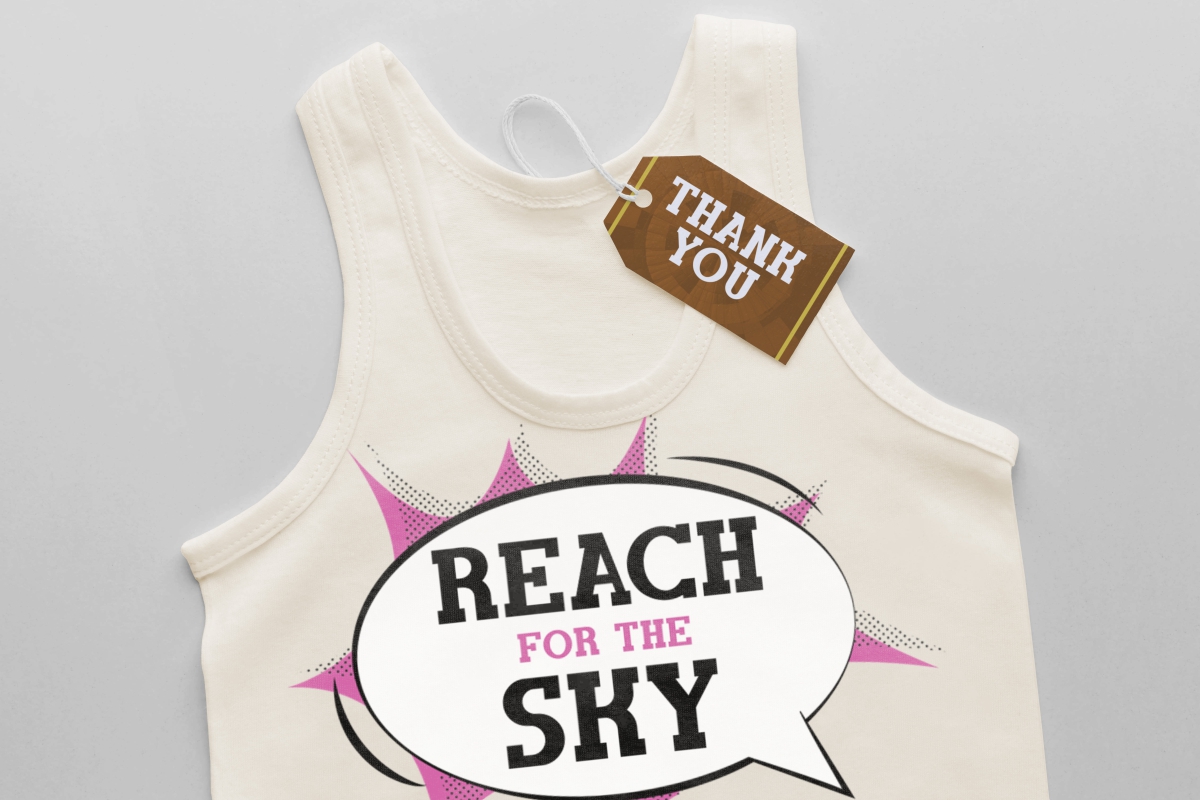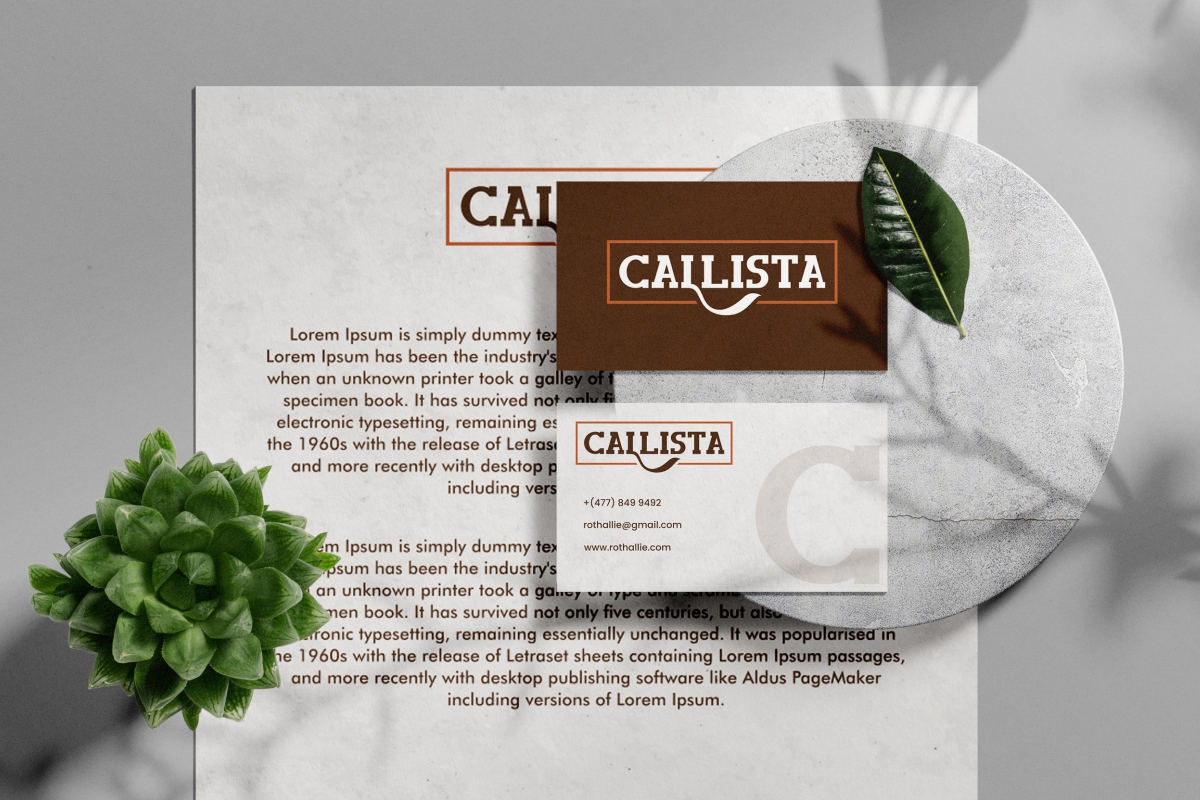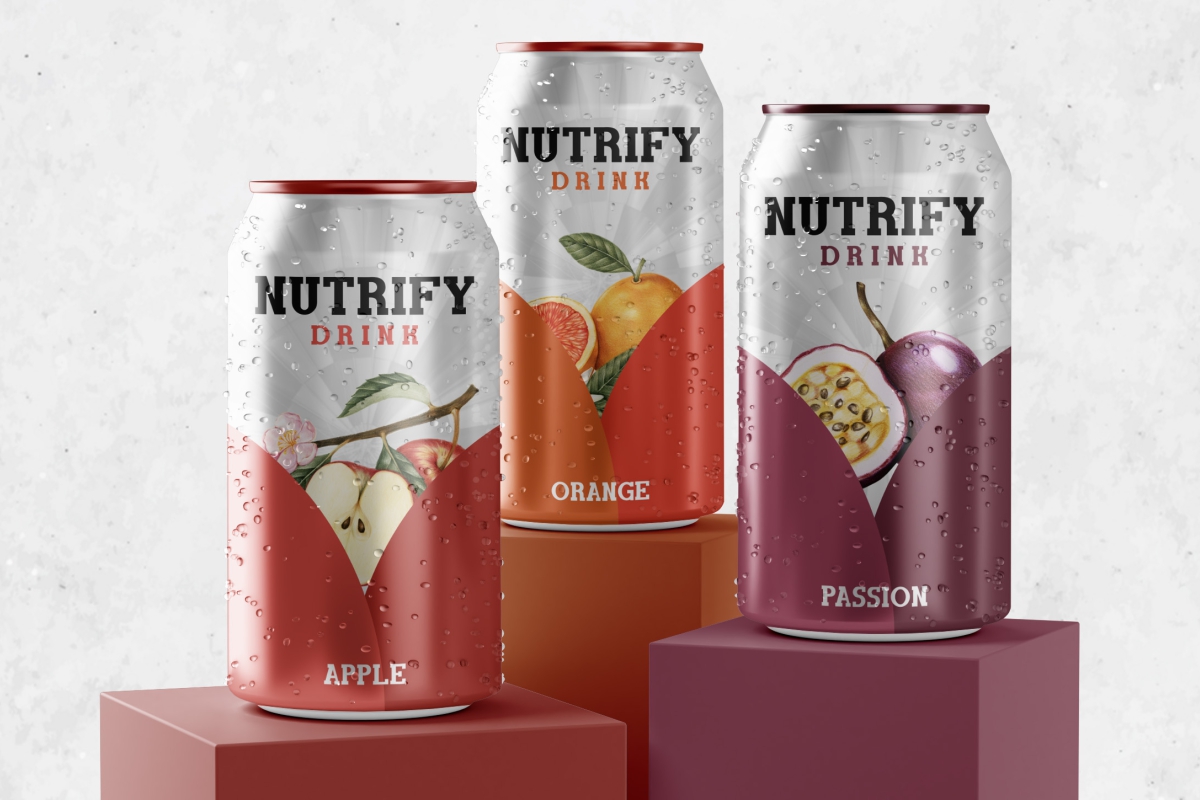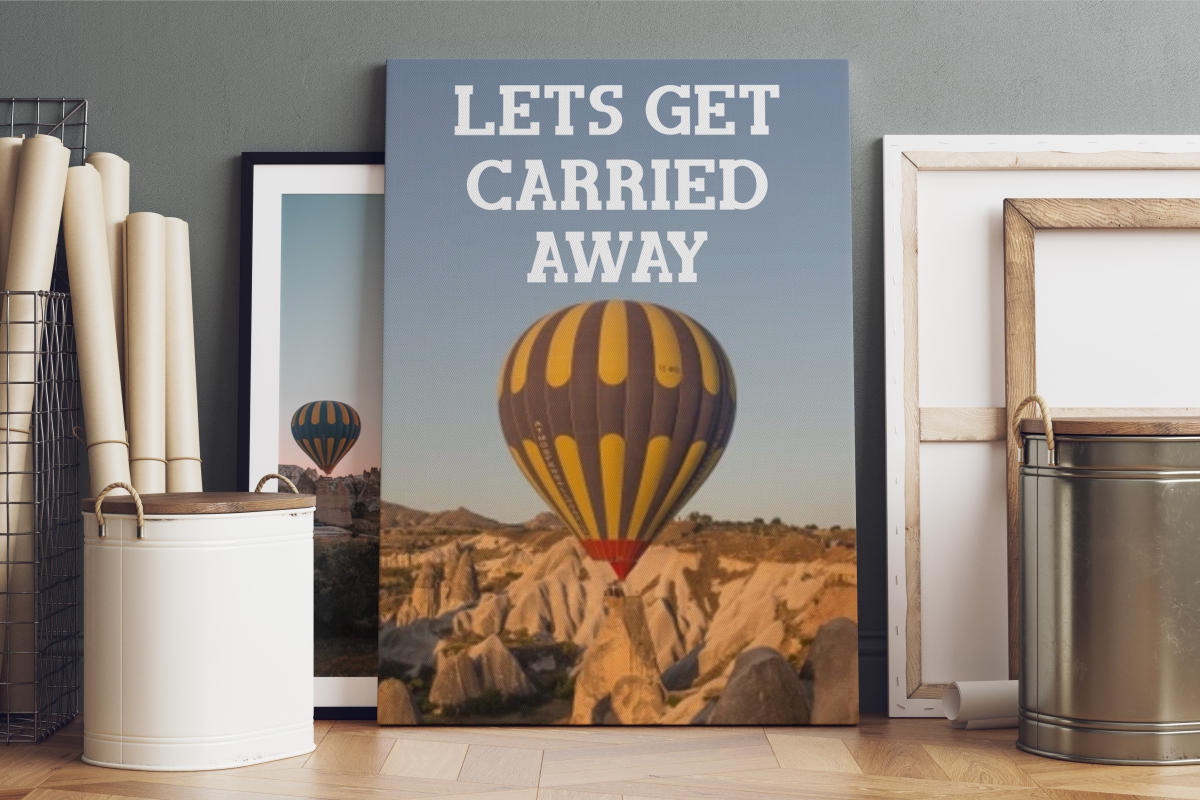
Cappadocia Dream Font
Cappadocia Dream Slab Serif Font
It’s a charming serif display font with trendy alternates style inspired by the popular tourist spot in Turkey, Cappadocia that makes you feel like your dreams are coming true. This font is perfect for cartoon or kids related design, business card, fashion store brand, food industry, perfume manufacturing production, product packaging design, title.